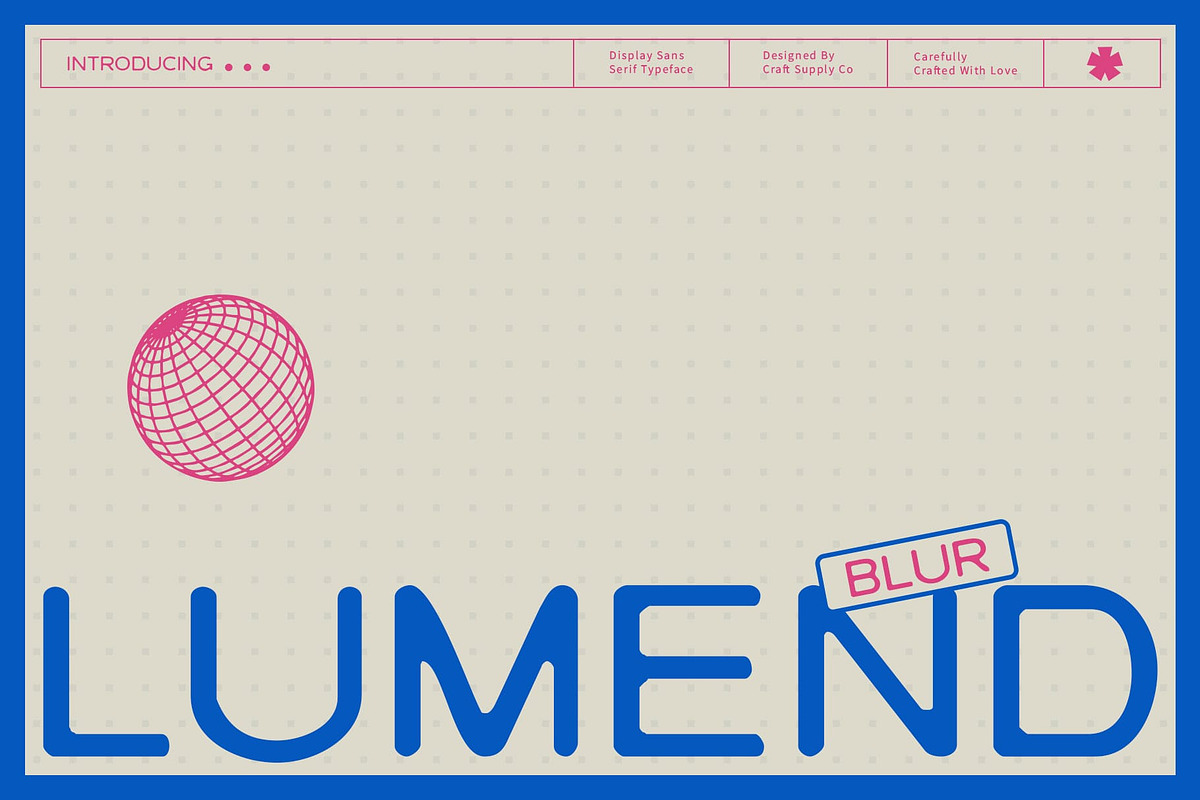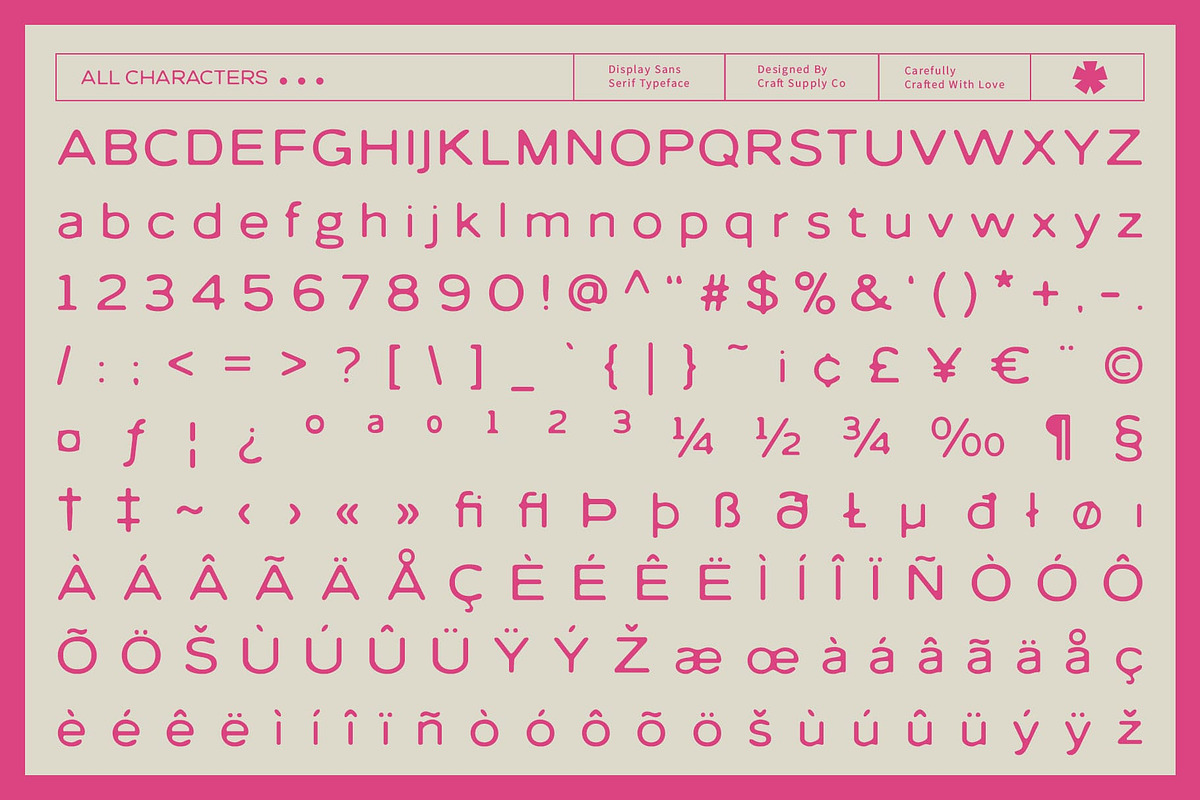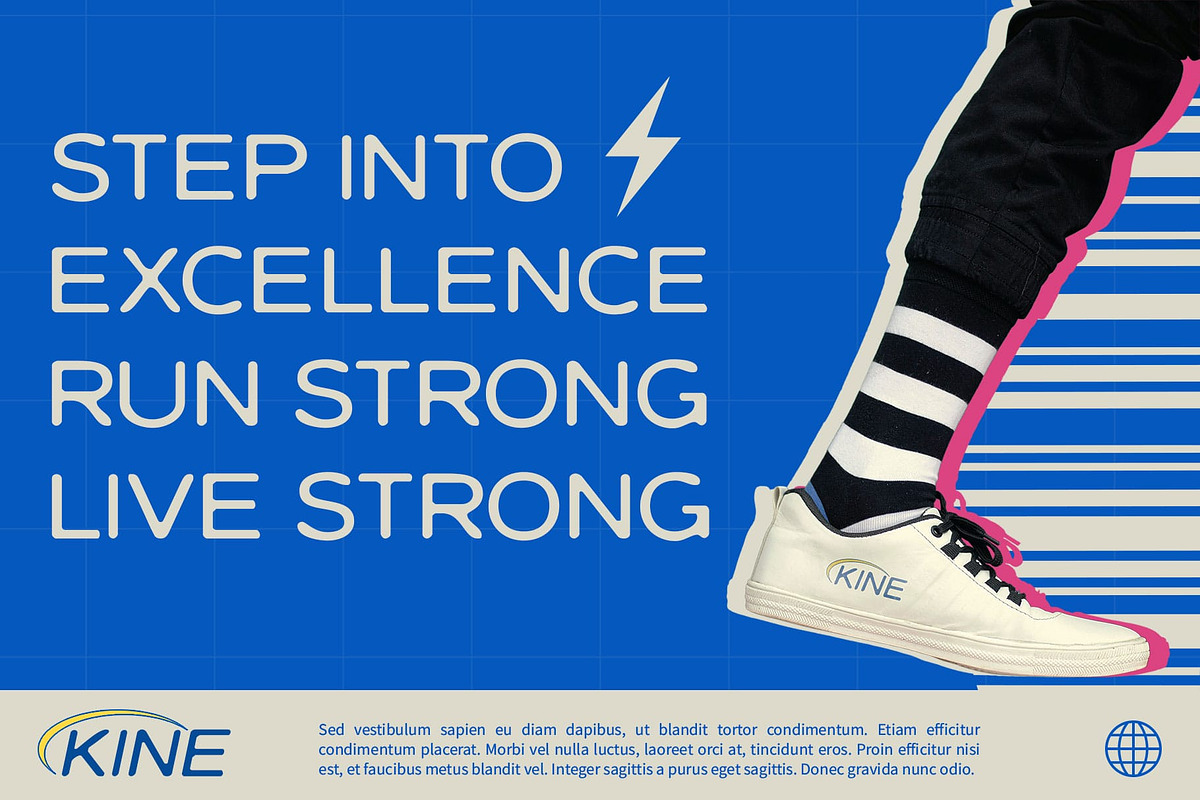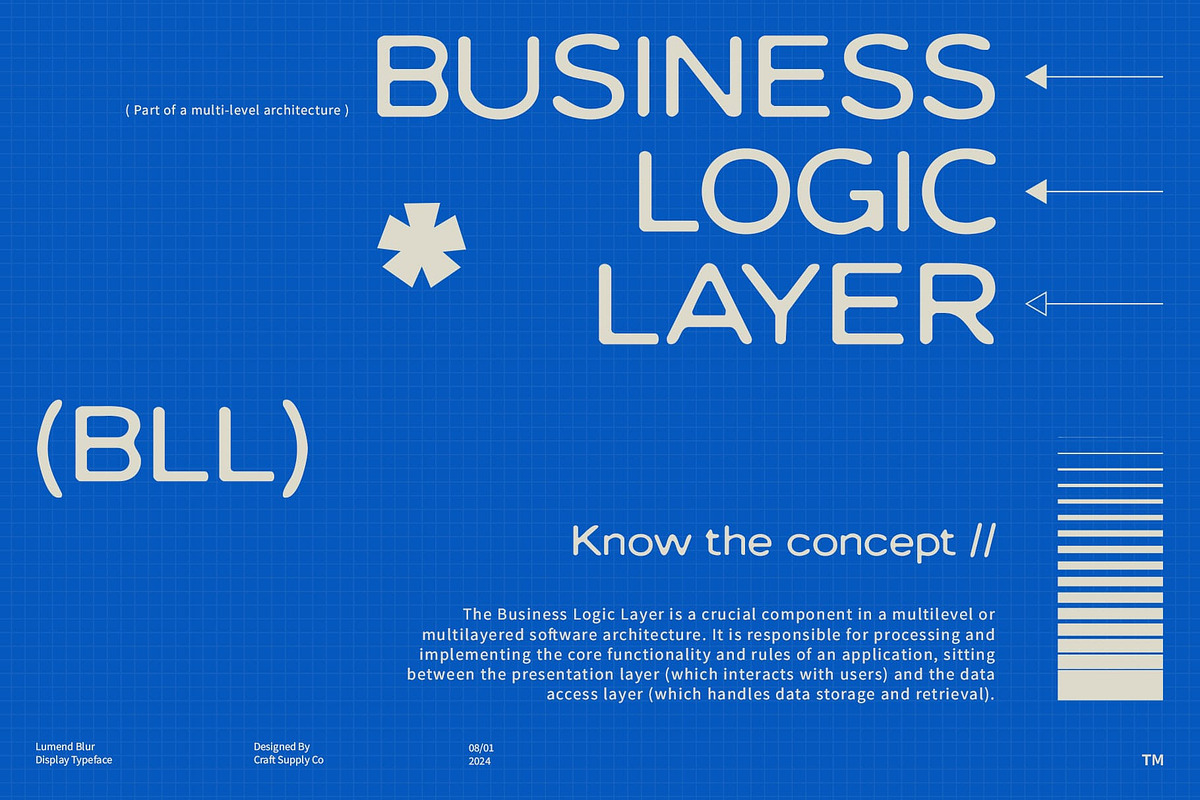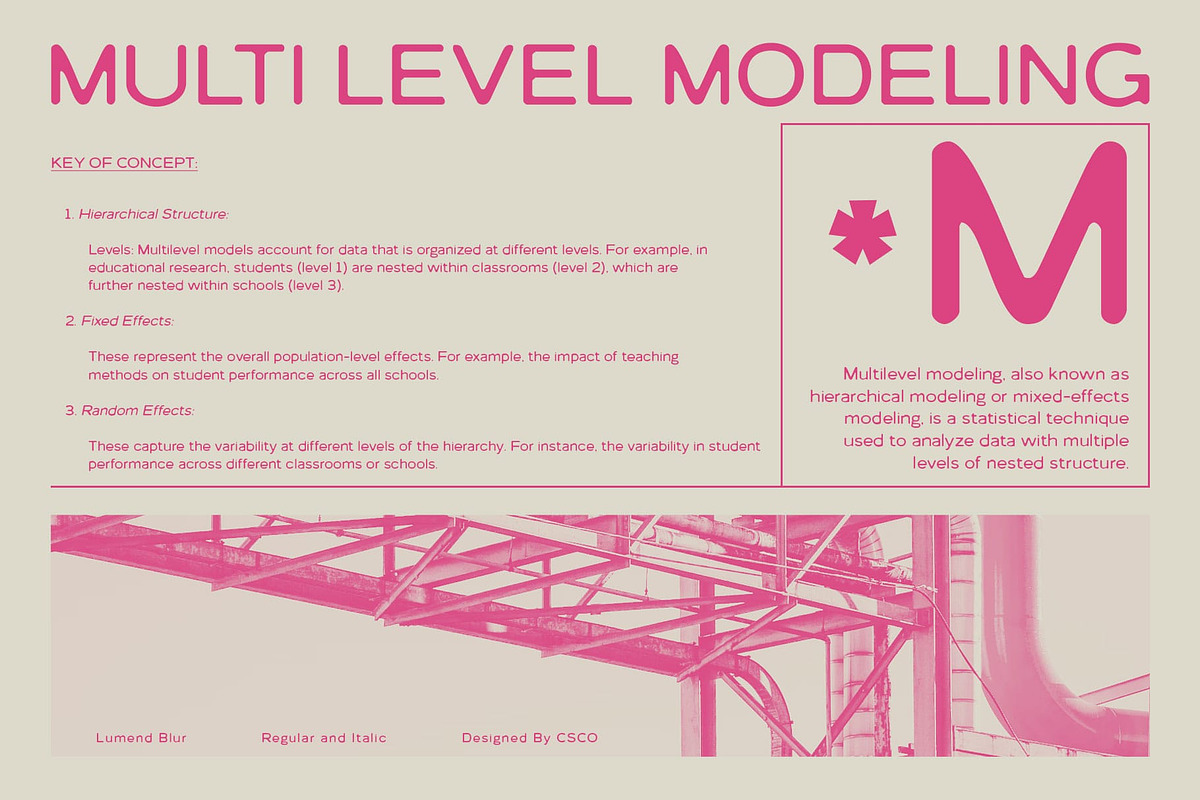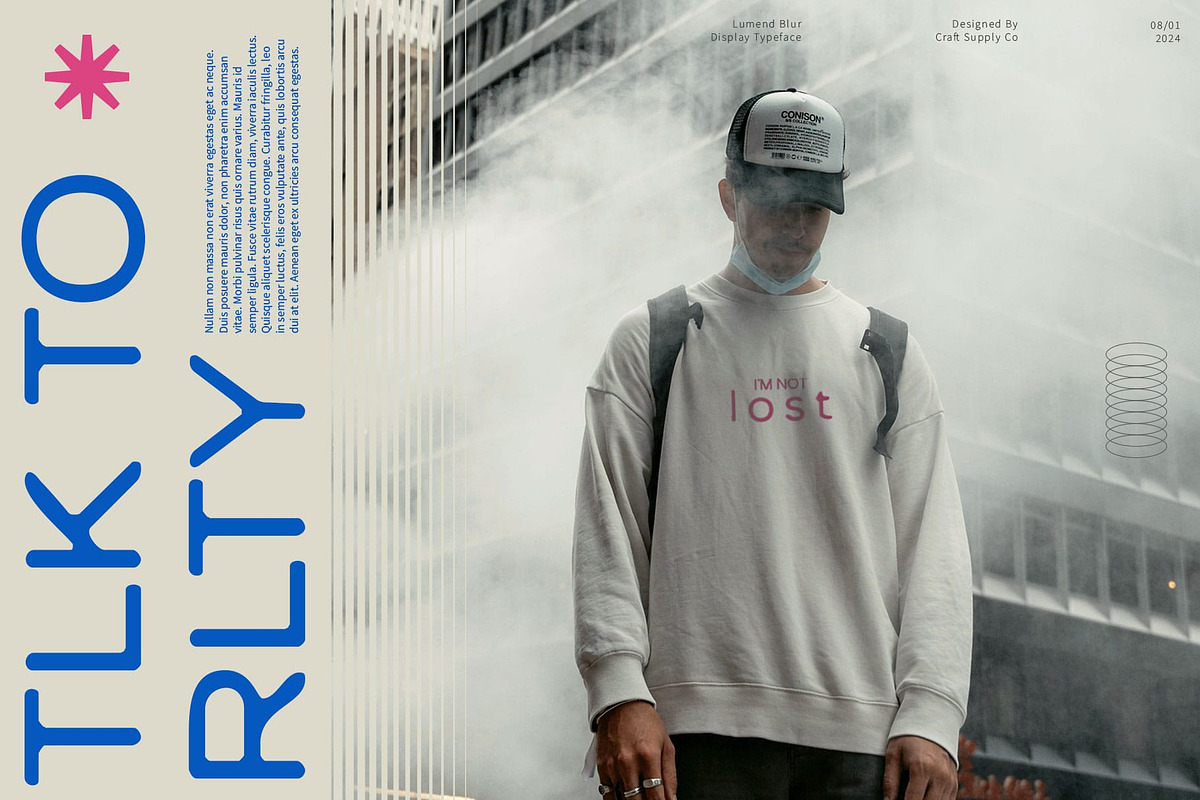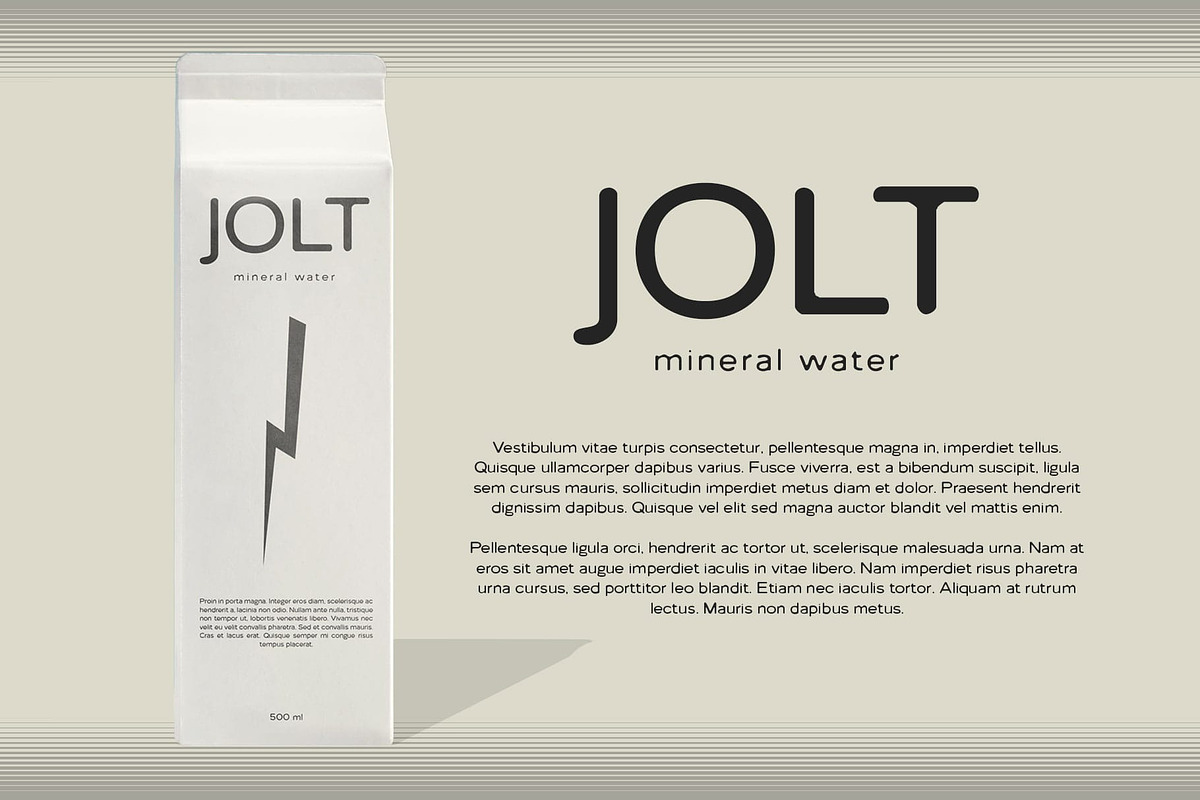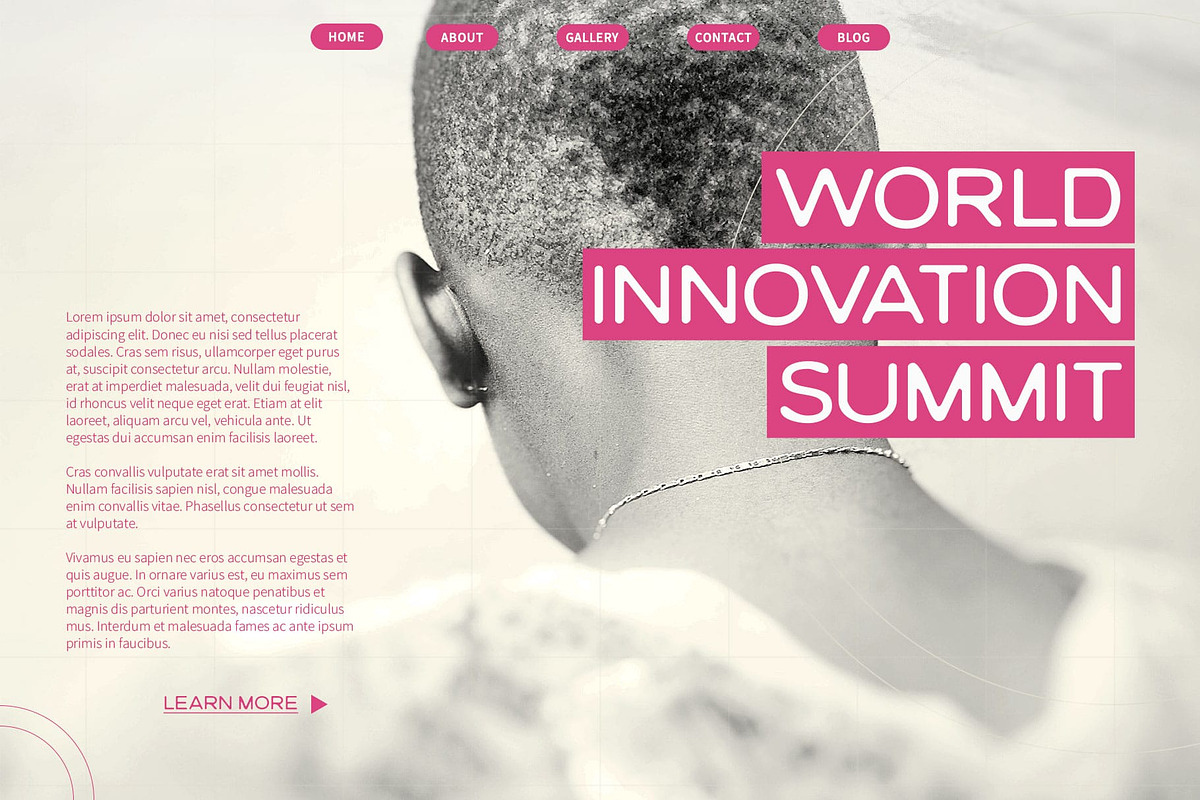
Lumend Blur
Lumend Blur – Modern Sans-Serif Font
Contemporary Minimalist Design Lumend Blur features a sleek and modern sans-serif design, characterized by its clean lines and simple, geometric shapes. This minimalist approach ensures a contemporary look that is both sophisticated and versatile.
Elegant Blur Effect The font’s subtle blur effect adds a refined touch of elegance, softening the clean edges with a smooth, ethereal quality. This blend of modern simplicity with a hint of sophistication makes Lumend Blur perfect for various applications.
Ideal for Digital and Print Applications Whether for digital media or print, Lumend Blur excels in delivering a modern aesthetic with functional clarity. It’s an ideal choice for projects requiring a polished, clean appearance that stands out with understated elegance.
Modern Aesthetic and Clean Functionality Enhance your designs with Lumend Blur’s contemporary style and elegant blur effect. Its minimalist yet sophisticated design ensures a high level of readability and modern appeal, making it suitable for a wide range of professional and creative uses.